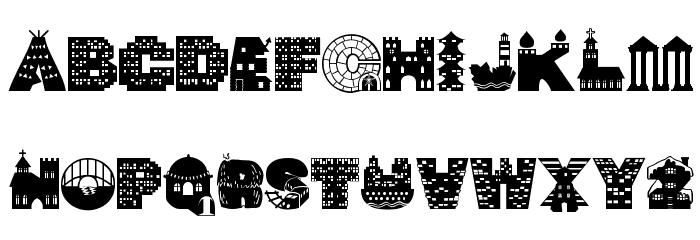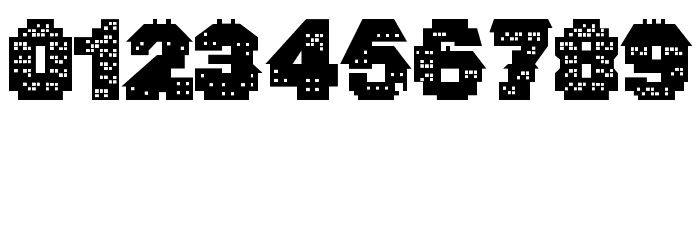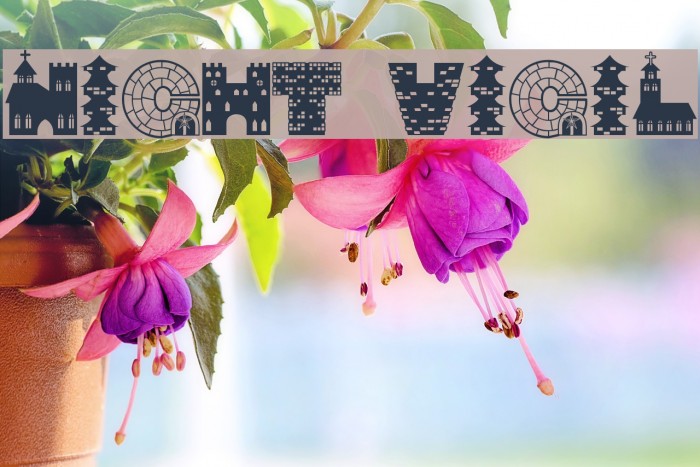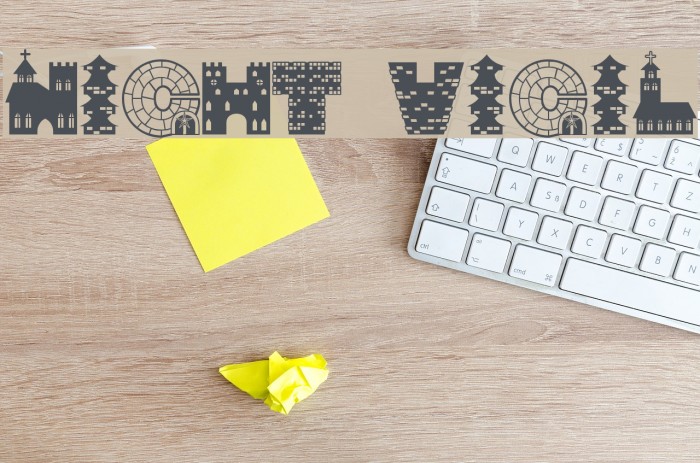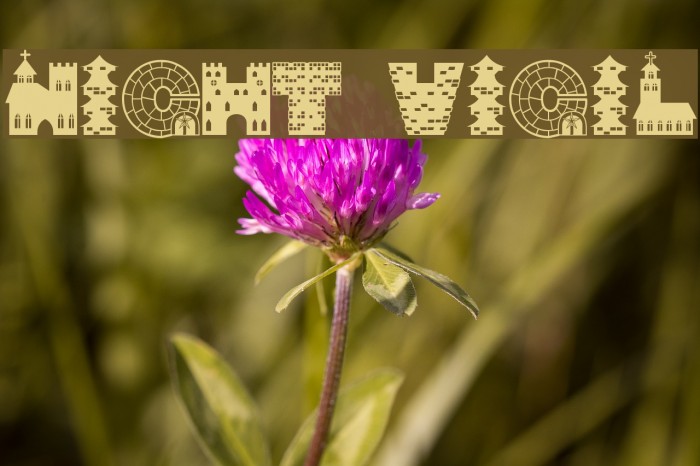
Night Vigil Font
This font features a unique and creative design where each character is integrated with elements of urban architecture and cityscapes. The letters and numbers are filled with silhouettes of buildings, windows, and rooftops, creating a night-time city vibe. The intricate details within each character give the font a decorative and thematic appearance, making it ideal for projects that require a strong visual impact. The bold and blocky structure of the characters ensures readability while maintaining an artistic flair. This font is perfect for capturing the essence of an urban environment in a playful and imaginative way.
A decorative font with characters designed as urban cityscapes.
- Proposed Projects: Ideal for posters, event flyers, urban-themed branding, and creative design projects.